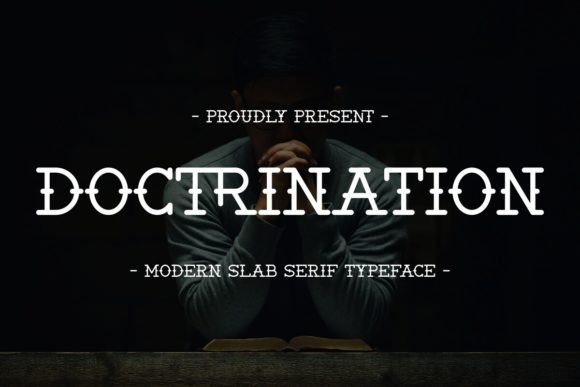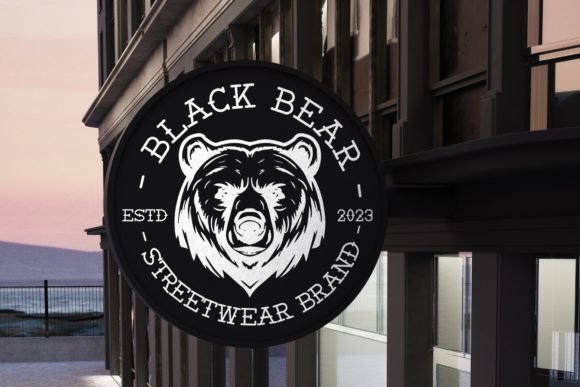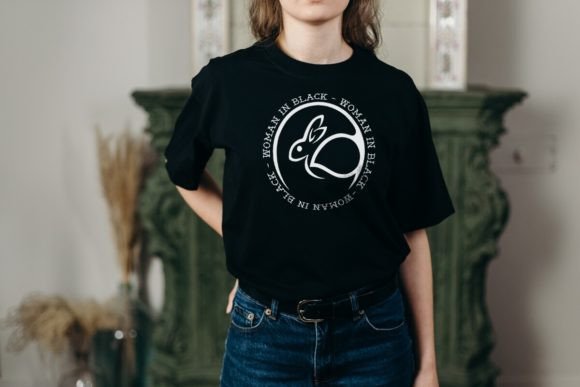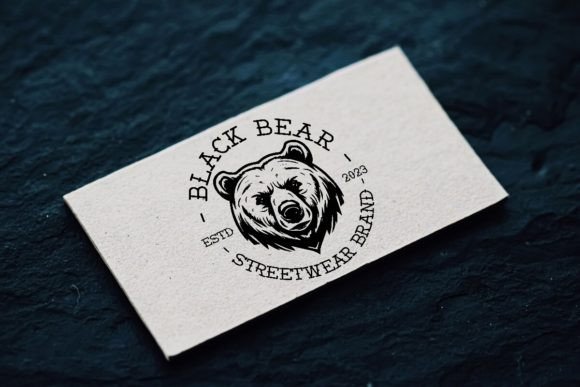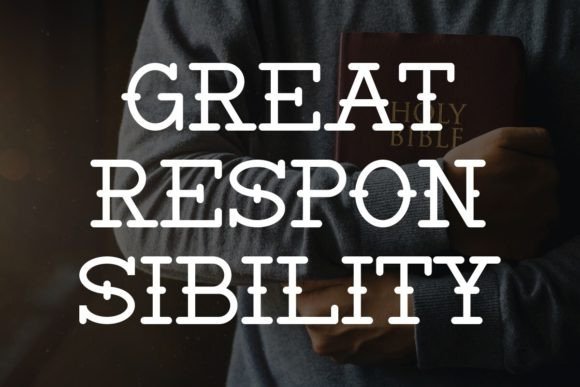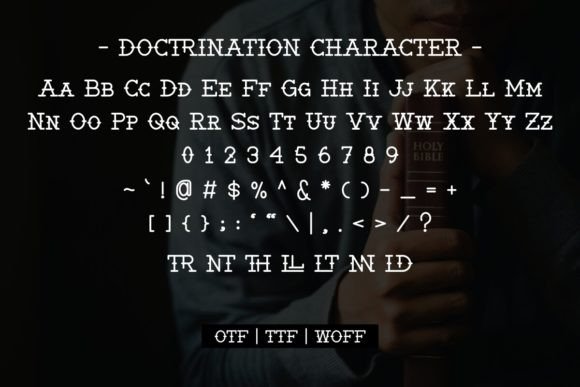
About Doctrination Font
Introducing Doctrination – Modern Slab Serif Typeface
Modern Slab Serif Typeface with a manly, vintage, gentle style. This font is cool for t-shirts, quotes, headlines, overlays, etc.